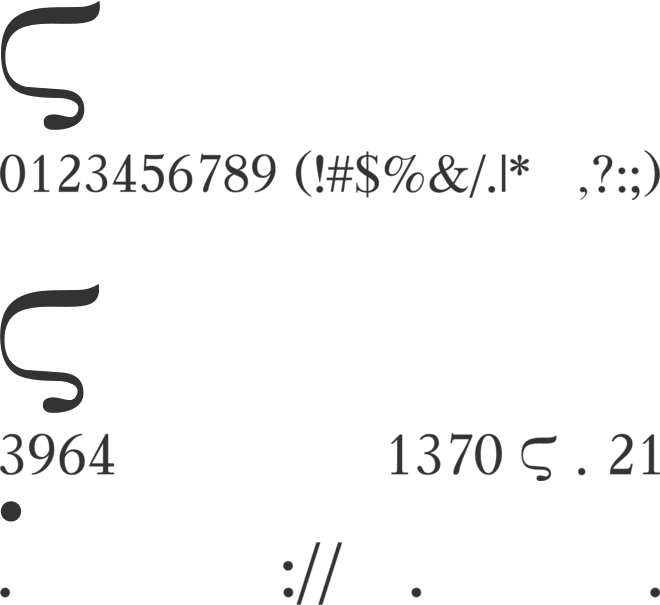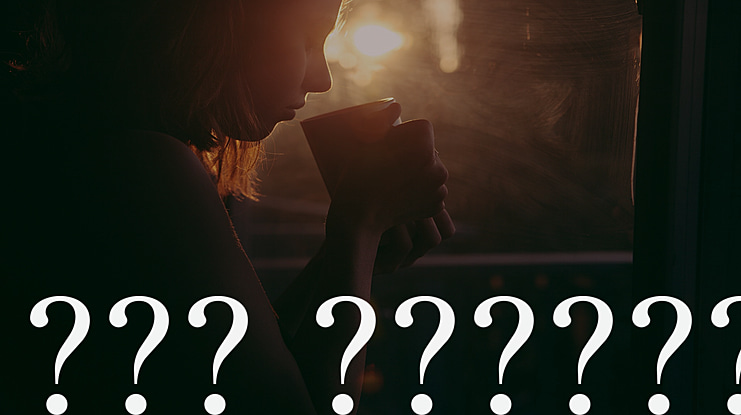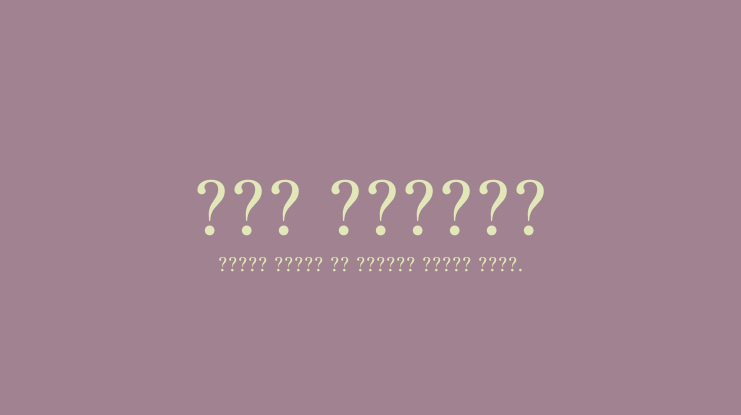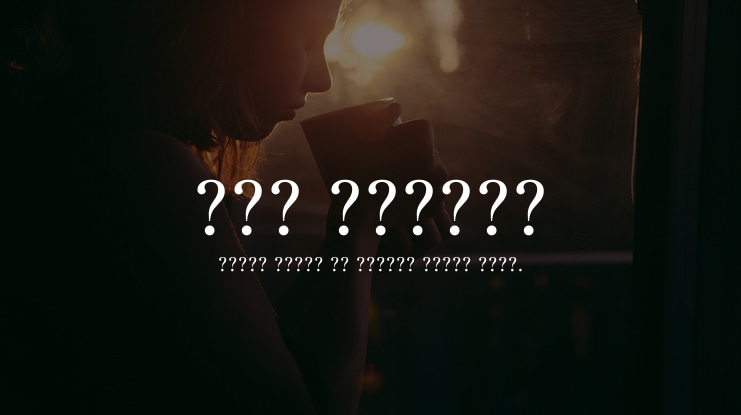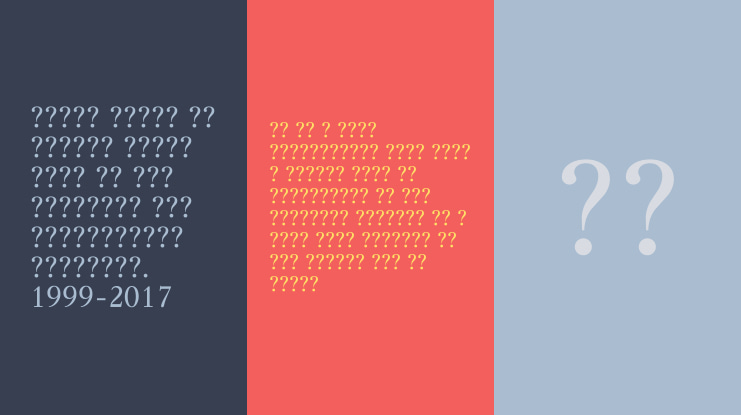
GFS Porson Font
George Matthiopoulos
At the turn of the 19th century, the Cambridge University Press produced a new set of Greek fonts. The typeface was based on the handwriting of the Classicist Richard Porson, and cut by Richard Austin. It became pervasive in classical publications in Great Britain and the United States of America. Monotype released a version in 1913, which GFS Porson is based on, although it retains the upright capitals of the original.